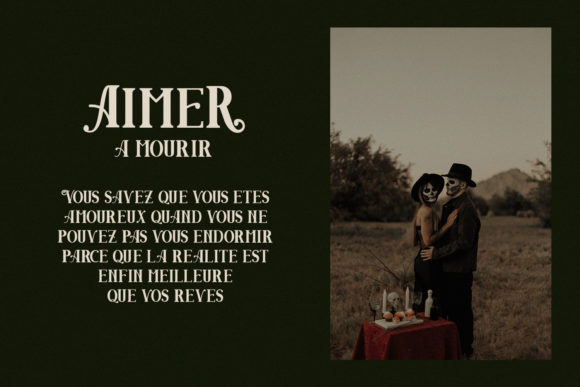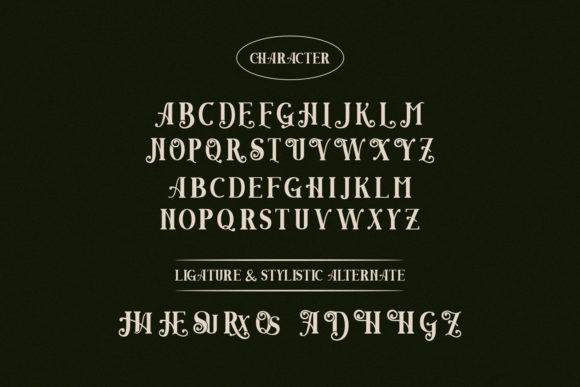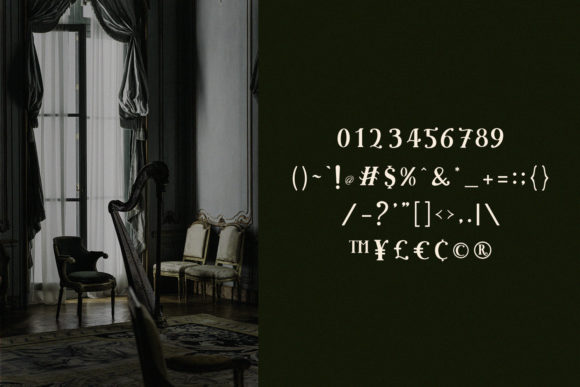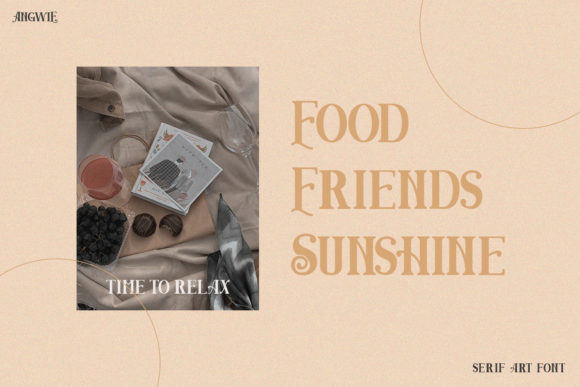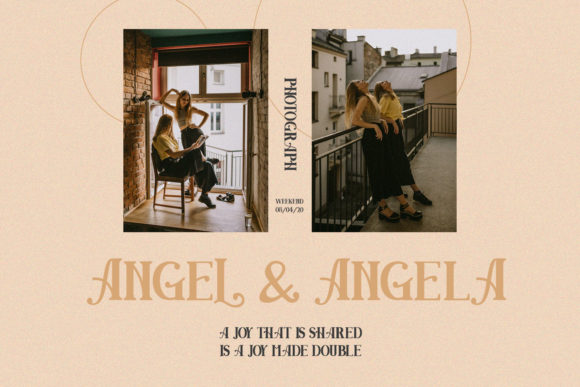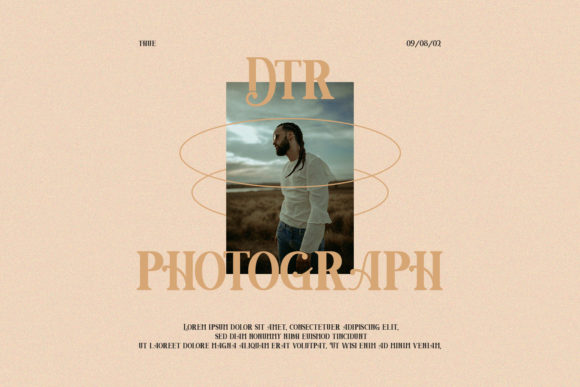
Discover the Power of Angwie Font: Elevate Your Creations with a Bold Twist
Remember that moment when you’re working on a design project, and you’re stuck trying to find the perfect font to bring your idea to life? You browse through countless options, but nothing seems to quite fit. That’s where the Angwie Font comes in – a bold and strong lettered serif font that’s guaranteed to take your creations to the next level.
Whether you’re a graphic designer, writer, or artist, Angwie Font is an incredibly valuable addition to your font library. Its versatility makes it perfect for a wide range of projects, from headlines and titles to body text and even logos. With Angwie Font, you can add a touch of sophistication and elegance to any design, making it a must-have for any creative professional.
- Unique Characteristics: Angwie Font features a distinctive, modern design with a unique blend of geometric and organic elements, giving it a visually striking appearance.
Angwie Font Review
Overall, I think the Angwie Font has some great qualities that make it suitable for certain design projects. Here are a few things that work well: ✨
- Unique Character Set: The font has a distinctive, quirky character set that adds a touch of personality to text.
- Good Legibility: Despite its unusual shape, the font is generally easy to read, especially at larger sizes.
- Flexibility: Angwie Font can be used in a variety of contexts, from digital displays to print materials.
However, there are also some limitations to consider: ⚠️
- Difficulty in Small Sizes: At very small sizes, the font can become hard to read due to its unusual shape.
- Limited Versatility: While the font can be used in a variety of contexts, it may not be the best choice for formal or professional projects.
Overall, I think the Angwie Font is a fun, creative option that can add a unique touch to certain design projects. However, it’s not a good fit for every project, and designers should be aware of its limitations before using it.
Tips for Getting the Most Out of Angwie Font
Angwie font is best used for titles and headings due to its bold and playful style. To get the most out of it, use it sparingly and pair it with a clean and simple font for body text.
Angwie font is commonly used for:
- Brand logos and titles
- Headings and subheadings in marketing materials
- Decorative text in social media graphics